29 Best Logo fonts to Give Your Brand a Unique Look in 2026
Choosing the right Logo fonts is a vital step in defining how the world perceives your business. In 2026, the best brand identities are leaning into clean lines and distinct character shapes to cut through the digital noise. This collection of 29 typefaces offers a variety of styles, from bold modernism to classic elegance, ensuring you find the perfect match for your visual identity. Whether you are refreshing an old mark or starting from scratch, these selections provide the readability and impact needed for a successful launch.
1. Become Font
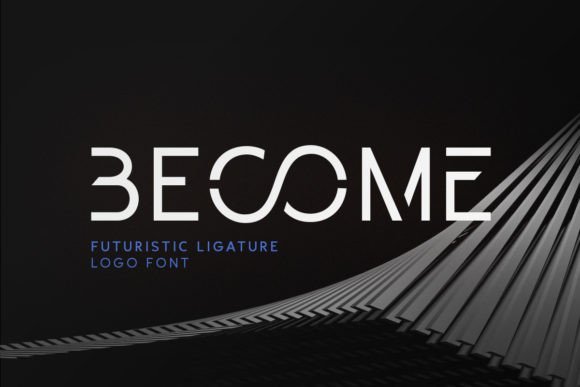
Become Font stands out as a premier choice among futuristic logo fonts, blending a traditional sans-serif foundation with avant-garde stylistic choices. Its defining characteristic is the unique, twisted lowercase characters that break away from conventional letterforms, offering a visual rhythm that is both fluid and high-tech. This makes it an ideal selection for tech startups or creative agencies looking to establish a progressive brand identity that feels both approachable and ahead of its time.
Beyond its primary characters, this typeface includes a suite of creative ligatures that allow for seamless connections between letters, enhancing the custom feel of any wordmark. When searching for logo fonts that combine legibility with a distinct modern edge, Become provides the versatility needed for everything from app icons to large-scale digital displays. It is a perfect tool for designers who want to push the boundaries of typography while maintaining a professional and polished aesthetic.
2. Grandom Font
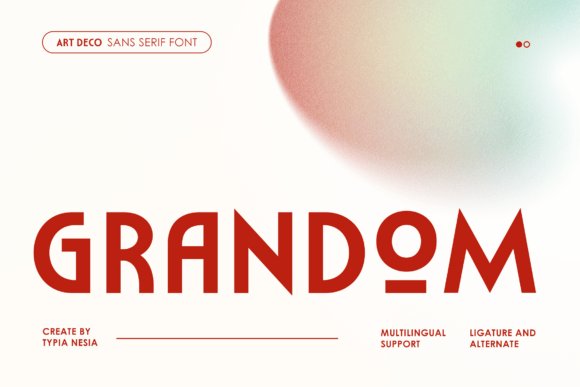
Grandom Font is a sophisticated blend of bold Art Deco influences and contemporary minimalism, positioning it as a top-tier option for professional logo fonts. Its architecture is grounded in clean lines and high-contrast forms, which evoke a sense of timeless elegance while remaining perfectly suited for 21st-century aesthetic standards. It is particularly effective for high-end corporate identities, luxury café branding, and impactful editorial headlines where a confident and distinctive presence is required.
What sets Grandom apart is its comprehensive set of alternates and ligatures, which provide designers with the flexibility to create truly custom typographic layouts without the need for manual modification. Whether you are crafting a sleek wordmark for a fashion house or a minimalist poster for an art gallery, this font’s balanced proportions and professional finish ensure your design communicates strength and refinement. Its versatility across digital and print media makes it a reliable asset in any branding toolkit for those seeking a premium look.
3. Glagxo Font
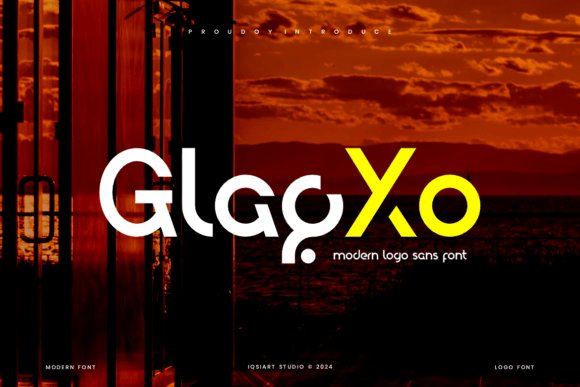
Glagxo Font epitomizes the ‘less is more’ philosophy, offering a clean and modern aesthetic that is essential for versatile logo fonts. The typeface features smooth, geometric lines and meticulously balanced spacing, ensuring maximum readability across various sizes and mediums. This simplicity allows the brand’s message to take center stage, making it a go-to choice for businesses aiming for a fresh, approachable, and highly professional visual identity that resonates with a broad audience.
Because of its neutral yet distinct character, Glagxo works exceptionally well in both digital interfaces and physical signage. It serves as a reliable foundation for tech brands, lifestyle blogs, and retail packaging where clarity and balance are paramount. By choosing a well-structured sans-serif like Glagxo, designers can ensure their logo designs remain timeless and functional, adapting effortlessly to evolving trends while maintaining a cohesive and polished look across all brand touchpoints.
4. Cruiser Font
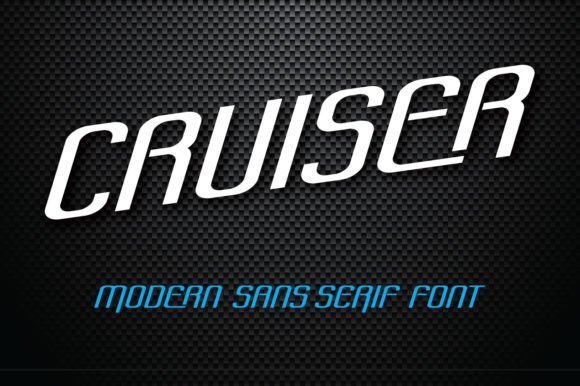
Cruiser Font stands out as a premier choice for high-energy branding, specifically tailored for designers seeking dynamic logo fonts within the sports and racing sectors. Its streamlined, modern sans-serif construction evokes a sense of speed and forward momentum, making it an ideal candidate for athletic apparel, automotive events, or any project that requires a powerful visual impact that feels both fast and professional.
Beyond its aesthetic appeal, this typeface is PUA encoded, ensuring that designers can seamlessly access its full range of glyphs and ligatures without needing specialized professional software. This level of accessibility makes it a versatile tool for creating cohesive brand identities that look just as impressive on a high-speed physical vehicle as they do on a digital leaderboard or social media banner.
5. Hipo Font
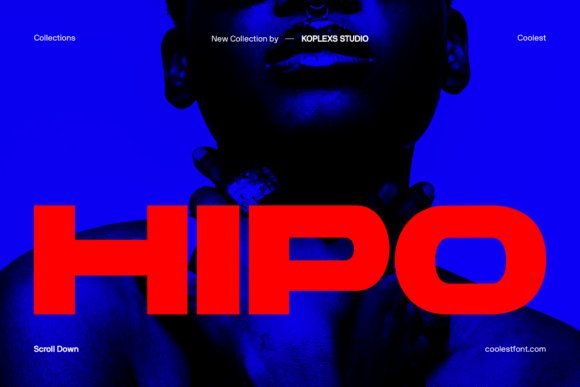
When it comes to modern branding, Hipo Font offers a masterclass in combining bold strength with sleek, minimalist elegance. As one of the more versatile logo fonts in a designer’s toolkit, its confident shapes and clean lines provide a sturdy foundation for luxury brands, fashion editorials, and high-end packaging. The heavy weight of its strokes ensures that your typography remains legible and impactful across various scales, from small mobile screens to massive outdoor billboards.
This typeface isn’t just about visual weight; it’s about establishing a unique personality. Hipo includes extended Latin support and special characters, making it a globally ready solution for international brand identities. Whether you are crafting high-stakes social media campaigns or physical merchandise, its clean sans-serif construction helps elevate any creative project into a sophisticated and authoritative professional statement.
6. Venture Explore Font
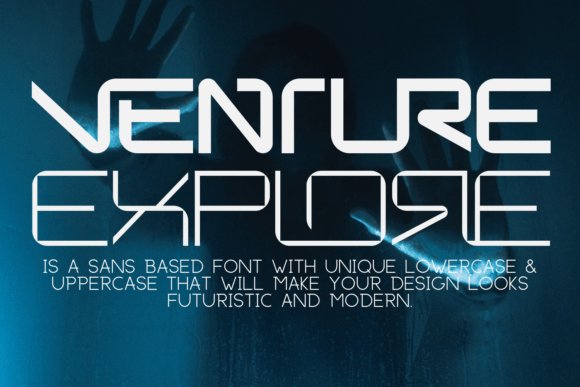
Venture Explore Font is a breath of fresh air for designers looking to move away from heavy, traditional styles toward more light and futuristic logo fonts. With its minimalist approach and unique lowercase character set, it provides a distinctive look that is perfectly suited for tech startups, modern web designs, and innovative brand projects. Its airy feel creates an atmosphere of transparency and cutting-edge sophistication that helps a brand feel approachable yet advanced.
The inherent simplicity of Venture Explore allows for incredible flexibility, functioning beautifully on everything from delicate business cards to large-scale promotional flyers. By focusing on clean lines and unique letterforms, this font family ensures your brand identity remains uncluttered and memorable. It is an essential asset for anyone aiming to produce a contemporary aesthetic that resonates deeply with a modern, tech-savvy audience.
7. Cedar Ridge Font
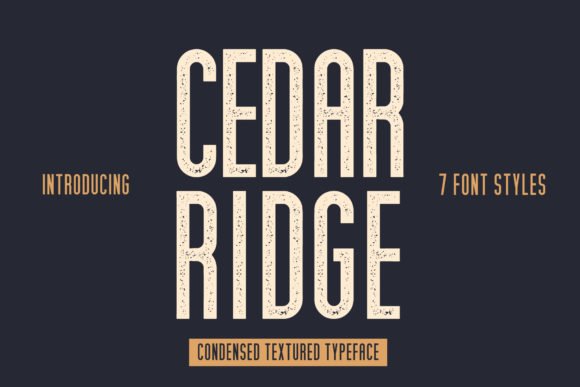
Cedar Ridge is a masterclass in versatility, offering a condensed textured aesthetic that brings a tactile feel to any digital canvas. With seven distinct styles including regular, round, rough, alt, outline, italic, and printed, this family provides designers with a comprehensive toolkit for building cohesive brand identities. As a choice for logo fonts, its textured variations add an authentic, handcrafted quality that resonates well with artisanal and outdoor-oriented businesses looking to establish a rugged yet approachable presence.
Beyond its primary application in branding, the font excels as a secondary text option. Its condensed proportions allow for efficient space management in editorial layouts or mobile app interfaces without sacrificing character. Whether you are aiming for a weathered, vintage look with the ‘rough’ style or a sleek, modern outline effect, Cedar Ridge adapts effortlessly to the nuances of your design project, making it a valuable asset for any creative professional’s library.
8. Gescobar Font
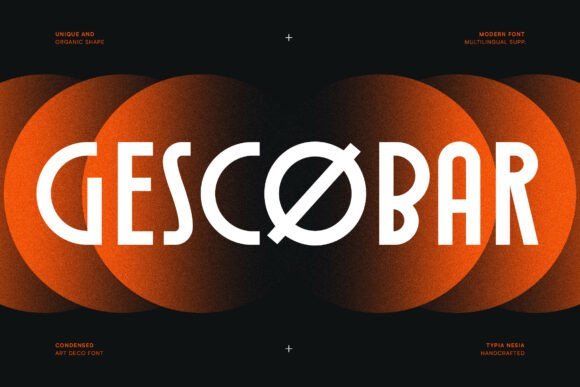
Gescobar stands out as a refined, professional typeface that marries classic Art Deco sophistication with contemporary minimalist trends. This tall, condensed sans-serif is designed specifically for those seeking high-impact logo fonts that exude confidence and elegance. Its clean lines and sharp geometry make it an ideal candidate for premium wordmarks, helping luxury brands and high-end boutiques establish a timeless and iconic presence in a crowded market.
The versatility of Gescobar extends into the corporate and editorial realms, where its bold verticality serves as a powerful tool for headlines and exhibition displays. Its professional demeanor ensures that message delivery remains clear and authoritative, while its unique silhouette provides a distinctive flair that standard sans-serifs lack. Use it for high-end advertising materials or corporate identity systems to achieve a look that is both modern and enduringly stylish.
9. Grivor Racer Font
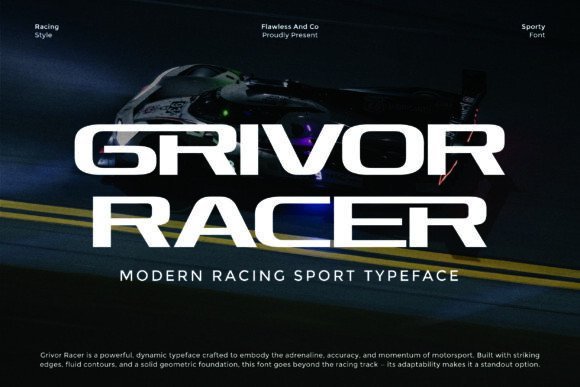
Grivor Racer is a high-energy typeface engineered to reflect the speed and precision of modern motorsport. Featuring sharp diagonal cuts and aerodynamic curves, this geometric font family is the perfect solution for sports logo fonts that need to communicate power and motion. The bold weight and aggressive stance ensure that any brand utilizing this typeface will stand out, capturing the adrenaline-fueled essence of the racing world and translating it into a visual identity.
While its roots are firmly planted in the automotive and sports industries, Grivor Racer is surprisingly adaptable for a variety of high-impact design projects. It is an excellent choice for gaming logos, athletic apparel branding, and promotional posters where legibility and visual punch are equally critical. The balanced construction ensures that even at high speeds—or smaller scales—your typography remains crisp and professional, giving your designs a sense of technical mastery.
10. Grandos Font
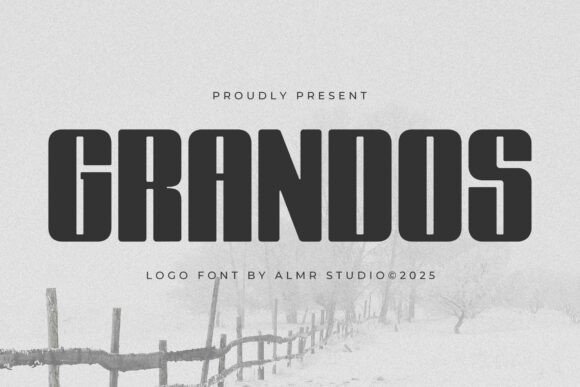
Grandos Font is a quintessential modern sans serif designed for clarity and versatility. Its balanced proportions and clean architecture make it an exceptional choice for designers searching for high-quality logo fonts that can adapt to any branding environment. Whether you are working on a minimalist corporate identity or high-impact social media graphics, Grandos provides a professional foundation that feels both contemporary and timeless. Its neutral yet sophisticated personality allows it to blend into any design system without overpowering other visual elements.
Beyond simple branding, this typeface excels in practical applications like product packaging, stationery, and wedding invitations. Its readability at various scales ensures that your message remains legible whether it is on a massive billboard or a small product label. For those building a cohesive visual language, Grandos offers the flexibility needed to pair well with more decorative scripts or to stand alone as a primary headline font, making it a staple for any modern designer’s toolkit.
11. First Moment Font
First Moment Font brings a unique vintage charm to the world of modern typography, bridging the gap between nostalgic hand-lettering and clean digital design. As one of those rare logo fonts that manages to feel both heritage-inspired and fresh, it features elegant lettering and bold strokes that command attention. The inclusion of decorative swashes allows for a fluid, custom feel, making it perfect for magazine headers, upscale poster designs, and editorial layouts that require a touch of human warmth.
The versatility of First Moment extends across a wide range of creative projects, from greeting cards to custom apparel design. Its character-rich display style works exceptionally well for brands that want to communicate authenticity and artisanal quality. If you are looking for logo fonts that double as expressive quote fonts or book cover titles, this font family provides the sophisticated, hand-crafted aesthetic necessary to resonate with a modern audience seeking a connection to the past.
12. Sayge Font
Sayge Font is a bold and innovative powerhouse in the realm of modern typography. Defined by its sharp lines and geometric precision, this typeface is engineered for brands that want to project confidence and technological sophistication. It stands out in the category of logo fonts by offering a futuristic look that remains highly legible, making it an ideal choice for tech startups, luxury lifestyle brands, and high-end industrial labels that require a clean, authoritative presence.
The striking angles and balanced structure of Sayge allow it to transition seamlessly from high-impact headlines to stylish text blocks. Its minimalist yet aggressive letterforms create a sense of movement and energy, ensuring that your branding projects are memorable. When selecting logo fonts that require a mix of minimalism and strength, Sayge offers the professional edge needed to make a lasting impression in a crowded market, providing a sharp aesthetic that cuts through the noise.
13. Logote Font
Logote Font stands out as a premier choice among contemporary logo fonts due to its uncompromisingly clean and minimalist aesthetic. By stripping away unnecessary decorative elements, this typeface focuses on smooth, rhythmic letterforms that convey a sense of modern professionalism. Its understated elegance makes it an ideal foundation for lifestyle brands or corporate identities that value clarity and a forward-thinking design philosophy.
Beyond its aesthetic appeal, this font offers exceptional versatility across various media. Whether you are designing a high-resolution website header or small-scale business cards, Logote maintains its structural integrity and readability. Its sleek profile allows it to pair beautifully with more expressive graphic elements, ensuring your brand mark remains the focal point of your visual identity system.
14. Tanod Font
Tanod Font is meticulously engineered for designers seeking a high-end, premium feel without the clutter of traditional luxury typefaces. As a standout in the world of logo fonts, it utilizes a rigorous geometric foundation balanced by unique character quirks that prevent it from feeling sterile. This blend of corporate precision and creative edge makes it particularly effective for tech startups and modern business ventures looking to establish a sophisticated market presence.
What truly sets Tanod apart is its dual-purpose performance; it is designed to command attention in large-scale display formats while remaining perfectly legible at smaller sizes. This adaptability is a critical feature for any successful logotype, ensuring that your branding remains consistent and recognizable across digital platforms, mobile apps, and physical signage.
15. Boulan Font
Boulan Font is a powerhouse of visual impact, specifically crafted for high-energy industries like gaming, sports, and tech. As one of the most robust logo fonts in this collection, it features bold, thick strokes and a strong geometric structure that demands immediate attention. The font’s weight provides a sense of stability and confidence, making it the perfect vehicle for brands that need to project strength and cutting-edge innovation.
In addition to its dominant presence in headlines and titles, Boulan excels in corporate identity projects where a bold visual statement is required. Its clean lines ensure that even with its heavy weight, the typeface never feels cramped or difficult to read. For designers working on packaging or event branding, this font offers the versatility to stand alone as a wordmark or complement complex graphic layouts, solidifying its place as a go-to tool for modern, impactful design.
16. Ganget Font
Ganget Font is a masterclass in minimalism, offering a clean and contemporary look that defines modern sans serif aesthetics. Its understated design makes it one of those versatile logo fonts that can adapt to various branding requirements without overpowering the visual message. Whether you are working on a high-octane sports poster or a sophisticated corporate identity, its balanced letterforms ensure readability across both print and digital platforms.
Beyond its primary use in identity design, Ganget excels in layouts where clarity is paramount. Its wide-ranging utility makes it a preferred choice for designers seeking a font that feels both professional and approachable. This typeface is particularly effective for tech startups and lifestyle brands looking to establish a timeless presence using crisp, sans-serif typography that resonates with a modern audience.
17. Seyna Font
Seyna Font represents a unique intersection of gothic heritage and contemporary design, creating a bold, medium-weight typeface that commands immediate attention. As a standout choice among decorative logo fonts, it brings a sense of weight and authority to headlines and film posters. Its distinctive character shapes allow it to bridge the gap between traditional artistry and functional graphic design, making it an excellent anchor for any brand looking to project strength and sophistication.
This font is incredibly versatile, extending its reach from corporate branding to the more niche world of tattoo artistry and edgy web design. The fusion of sharp angles and fluid curves ensures that every word written in Seyna leaves a lasting impression. If you are searching for a typeface that functions as both a display font and a memorable identifier, Seyna offers the striking visual presence needed to make your creative projects stand out in a saturated market.
18. Digittal Font
Digittal Font is engineered specifically for the tech-driven landscape, utilizing geometric precision and sharp angles to evoke a sense of future-forward innovation. When selecting logo fonts for software companies, mobile apps, or gaming franchises, Digittal stands out as a premier choice due to its clean lines and industrial-chic vibe. Its structure is optimized for high-tech environments, ensuring that brand names look as sharp on a retina display as they do on physical hardware.
The typeface’s futuristic aesthetic makes it an indispensable tool for UI/UX designers and creative directors working on modern digital products. It captures the essence of connectivity and progress, making it ideal for headers, digital advertisements, and cutting-edge editorial layouts. With its sleek proportions and tech-savvy personality, Digittal provides the professional edge necessary to represent the next generation of digital advancement.
19. Access Angles Font
Access Angles Font is a sleek, minimalist sans serif typeface specifically engineered for creators searching for futuristic and modern aesthetics. As a standout choice for high-end logo fonts, this family features a unique lowercase design that emphasizes geometric clarity and a clean visual rhythm. Its lightweight structure makes it particularly effective for minimalist branding, where every angle and curve must convey a sense of innovation and forward-thinking professionalism.
Beyond its primary role in visual identity, Access Angles Font excels across a variety of digital and print platforms. Whether you are crafting engaging social media layouts, professional business cards, or streamlined web designs, this typeface ensures readability while maintaining a distinct character. Its versatility allows it to transition effortlessly from tech-focused flyer designs to intricate craft projects, making it a reliable asset for any designer looking to simplify their visual messaging without losing impact.
20. Besport Font
Besport Font is a contemporary sans serif typeface designed to meet the rigorous demands of the athletic and lifestyle branding markets. Positioned as one of the more versatile logo fonts available today, it strikes a perfect balance between simplicity and trendiness. The typeface offers an elegant and classy appearance that remains stylish across various applications, ensuring that your brand identity remains relevant even as design trends shift. Its modern architecture provides a confident foundation for high-impact visual communication.
Ideal for a wide range of creative projects, Besport Font is particularly well-suited for fashion branding, food menus, and corporate company names. Its clear legibility and sophisticated weight distribution make it a go-to option for album covers, motivational quotes, and digital marketing materials. By choosing this font, designers can elevate their projects to a professional level, utilizing its sleek lines to build a memorable and authoritative brand presence across both print and digital media.
21. Agatic Font
Agatic Font is a refined geometric sans serif typeface meticulously crafted for premium branding and sophisticated corporate identities. Designed with an unwavering focus on precision and balance, it ranks among the top-tier logo fonts for businesses that demand a confident and enduring visual presence. Its minimalist yet bold character allows for a clean aesthetic that resonates with modern sensibilities, making it an excellent choice for technology companies, creative studios, and global enterprises seeking a timeless look.
Functionality is at the heart of Agatic Font, featuring extensive multilingual support and a thoughtfully developed set of ligatures and alternates. These professional-grade features ensure consistency and excellence across various global applications, from high-resolution digital displays to tactile print materials. Whether you are developing a comprehensive brand identity or a specific marketing campaign, Agatic provides the clarity, refinement, and prestige necessary to establish a leading presence in any industry.
22. Roctyak Font
Roctyak Font is a high-energy display face that blends geometric precision with a whimsical, rounded aesthetic. Its bold strokes and quirky angles make it a standout choice for designers looking for versatile Logo fonts that command attention without feeling overly rigid. The contrast between the structured uppercase and the fluid lowercase letters provides a rhythmic readability that works exceptionally well for headlines and modern brand identities.
Beyond its visual charm, Roctyak is fully PUA-encoded, giving creatives seamless access to a range of glyphs and alternates for deep customization. Whether you are working on children’s book layouts, vibrant packaging, or social media campaigns, this font brings a youthful, professional polish to the table. Its robust presence ensures it remains legible in both digital and print environments, making it a reliable tool for any creative arsenal.
23. Etiqua Font
Etiqua Font represents the pinnacle of modern sans-serif design, offering a clean and balanced structure that is essential for contemporary branding. As one of the more versatile Logo fonts in a designer’s toolkit, it balances minimalism with a professional edge, ensuring that brand names and slogans remain clear across various mediums. Its neutral yet sophisticated letterforms make it an excellent choice for corporate identities that require a timeless look.
The adaptability of Etiqua extends far beyond simple text; it excels in high-end photography watermarks, elegant wedding invitations, and luxury product packaging. Because it lacks distracting flourishes, it allows the surrounding design elements to shine while providing a solid typographic foundation. From digital advertisements to physical stationery, this font delivers a polished and cohesive aesthetic for any creative professional.
24. Mooxy Font
Mooxy Font is specifically engineered for those who demand a sleek, high-impact presence in their branding projects. Designed with a focus on professional identity, it stands out among modern Logo fonts for its sharp, clean lines and contemporary proportions. The minimalist approach of Mooxy ensures that it remains memorable, making it an ideal candidate for website headers and marketing materials that need to convey authority and innovation.
This font’s strength lies in its ability to provide a sophisticated visual identity with minimal effort. Its bold letterforms are perfect for luxury packaging and tech-oriented business branding, where a sense of forward-thinking design is crucial. By utilizing Mooxy, designers can create a cohesive look across multiple platforms, ensuring that the brand’s message is delivered with clarity and style.
25. Ferio Font
Ferio Font stands out as a sophisticated choice for designers seeking high-impact logo fonts that balance elegance with modern functionality. This versatile sans-serif family comes equipped with four distinct weights—light, regular, medium, and bold—providing a comprehensive toolkit for building a cohesive brand identity. The real magic lies in its extensive collection of alternates and ligatures, which empower designers to craft bespoke wordmarks that feel custom-made rather than off-the-shelf.
Beyond its primary role in logo design, Ferio is exceptionally well-suited for editorial layouts, high-end packaging, and digital advertising. The font is designed so that the uppercase characters perfectly complement the lowercase, including all stylistic flourishes, ensuring a consistent visual rhythm across headings and descriptions. Whether you are working on a luxury magazine cover or a minimalist tech interface, Ferio provides the stylish, bright aesthetic needed to capture consumer attention.
26. Goodpast Font
Goodpast Font is a minimalist yet futuristic powerhouse among logo fonts, characterized by its smooth, rounded sans-serif letterforms. It is specifically designed for projects that require a forward-thinking, sci-fi aesthetic, making it an ideal candidate for tech startups, gaming brands, and innovative architectural firms. What sets Goodpast apart are its unique, twisted alternates and creative ligatures, which allow for a high level of visual attraction and modern flair in any branding project.
Technical versatility is a core strength of this typeface, as it includes full multilingual support to cater to a global audience. While it excels in high-concept logos, it is equally effective for poster designs and digital interfaces where a clean, futuristic look is desired. Use Goodpast to create a stunning visual identity that feels both approachable and technologically advanced, ensuring your project remains ahead of the curve.
27. Lamora Font
Lamora Font is a masterclass in luxury and refinement, specifically engineered to serve as one of the premier logo fonts for high-end brand identities. Its clean lines and modern proportions exude a sense of quiet confidence and sophistication, making it perfect for brands that want to communicate prestige through subtle, well-crafted typography. The refined touch of Lamora ensures that every character contributes to an elevated and professional brand image.
This font is highly adaptable across various creative mediums, from fashion editorial headers to premium cosmetic packaging. By integrating Lamora into your design workflow, you can effortlessly elevate a project’s visual impact, providing a polished and elite finish. It is an essential choice for designers looking to create a timeless logo that feels both contemporary and deeply rooted in luxury design principles.
28. Quick Spirit Font
Quick Spirit is a masterclass in modern refinement, making it one of the premier choices for designers searching for high-end logo fonts. This light caption font is characterized by its impeccable balance and modern-yet-timeless appeal, which ensures maximum legibility across both print and digital mediums. Its distinctive charm is particularly effective for logotypes and luxury branding projects where a delicate but confident touch is required, allowing your brand to communicate elegance without being overly ornate.
Beyond its utility in identity design, Quick Spirit excels in editorial contexts such as magazine titles and advertising posters. The inclusion of oblique italic styles allows for dynamic typography that remains strikingly simple yet impactful. Whether you are crafting wedding invitations that require a dash of luxe or developing art deco-inspired packaging, this versatile sans serif provides the aesthetic flexibility needed for modern brands with a nostalgic flair.
29. Bamzer Font
Bamzer Font is an exceptionally alluring typeface designed specifically for those seeking memorable logo fonts with a contemporary edge. Its most striking feature is its unique curved architecture, which seamlessly blends sleek, modern lines with a touch of sophisticated flair. This makes Bamzer an ideal candidate for tech startups, fashion labels, and creative agencies looking to establish a visual identity that is both innovative and approachable. The fluid motion within the letterforms creates a sense of dynamism that keeps the viewer’s eye engaged.
While its artistic curves offer a distinctive look, Bamzer does not sacrifice functionality for style. It maintains excellent readability at various scales, making it a reliable choice for everything from small business cards to large-scale signage. For designers tasked with creating a brand that stands out in a saturated market, this sans serif offers a perfect balance of elegance and bold geometric precision, ensuring that any logotype created with it feels both current and timeless.
With these 29 Logo fonts at your disposal, you are well-equipped to build a brand that resonates with your audience. High-quality typography is the backbone of great design, and picking a font that aligns with your brand values is essential for long-term success. Take the time to experiment with weights and spacing to make your final choice truly your own as we move through 2026.